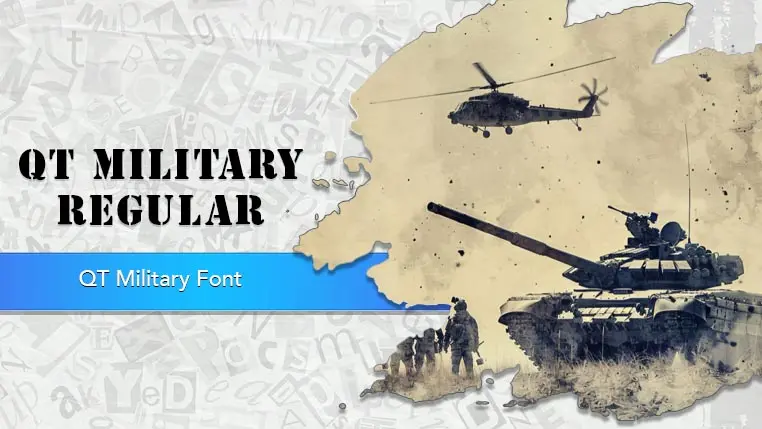
The QT Military font family may be ideal for you if you enjoy working on an artistic design project. The lively, expressive look of this typeface, which was created by Qualitype, makes it ideal for Military and Industrial Themes, Action and Adventure Genres and DIY and Craft Projects. Its bold, commanding presence makes it ideal for headlines in posters, advertisements, flyers, and website banners where you want to convey strength, urgency, or a utilitarian message. and other light-hearted visual projects.
Regular are the one primary font styles of the QT Military font family. You may build dynamic, visually appealing text layouts with the distinct flair that each style offers. With crisp, readable lines and a relaxed tone.